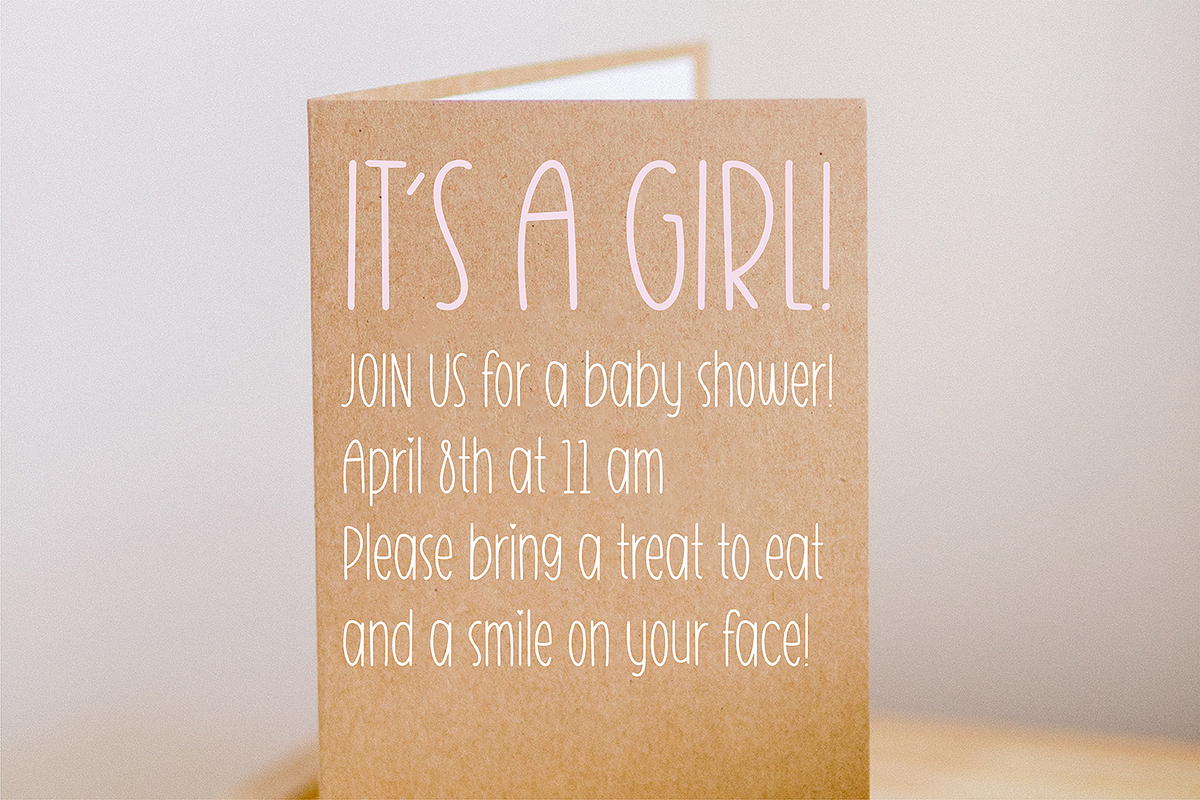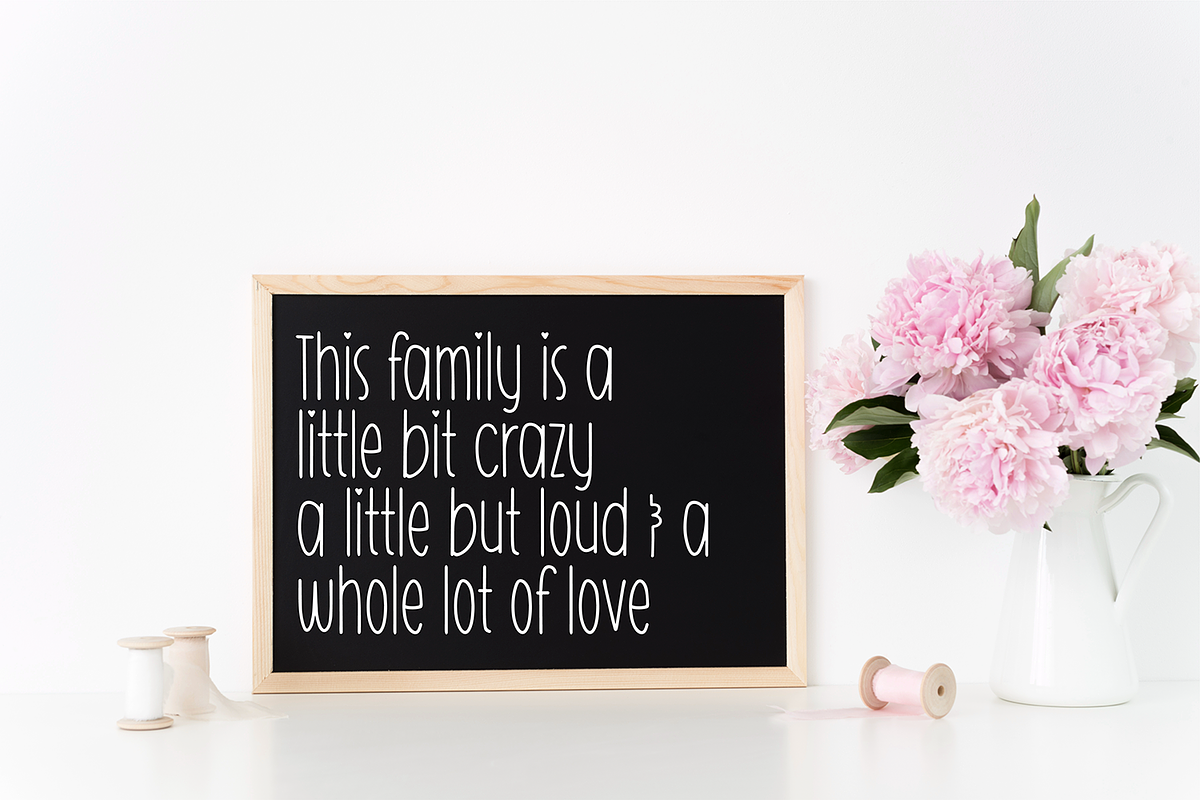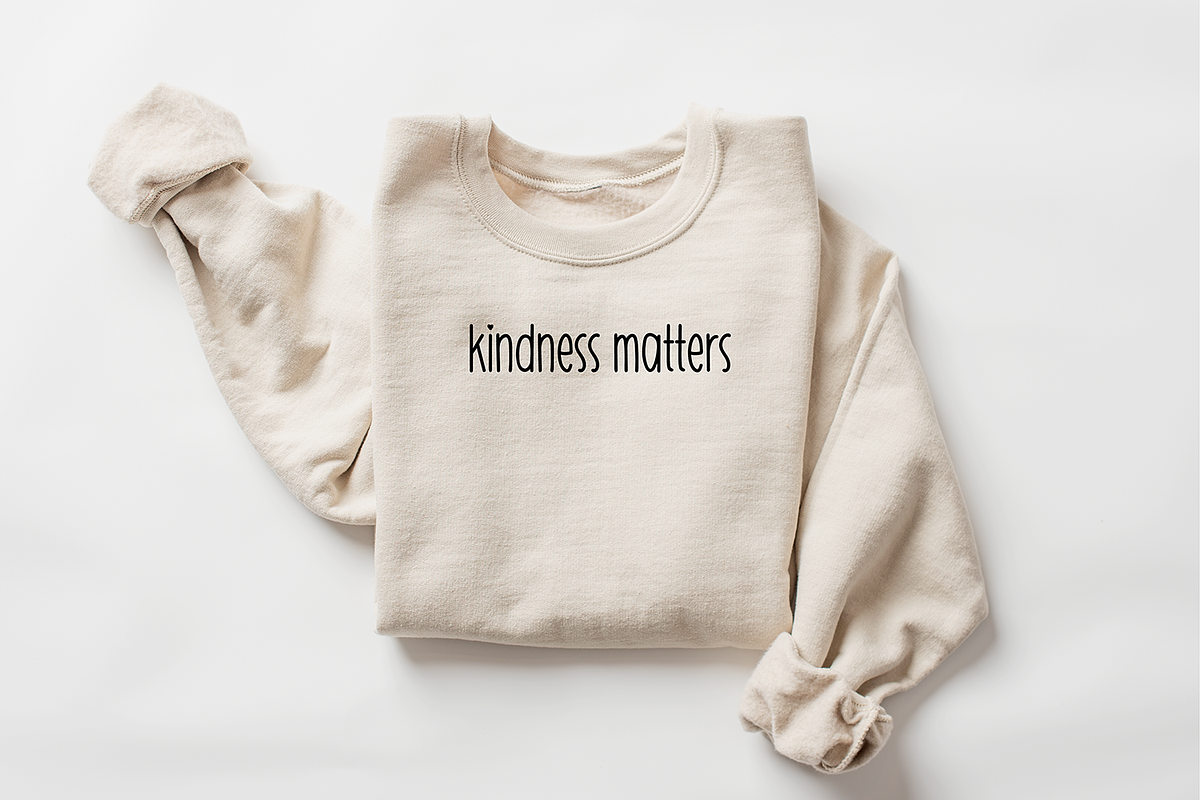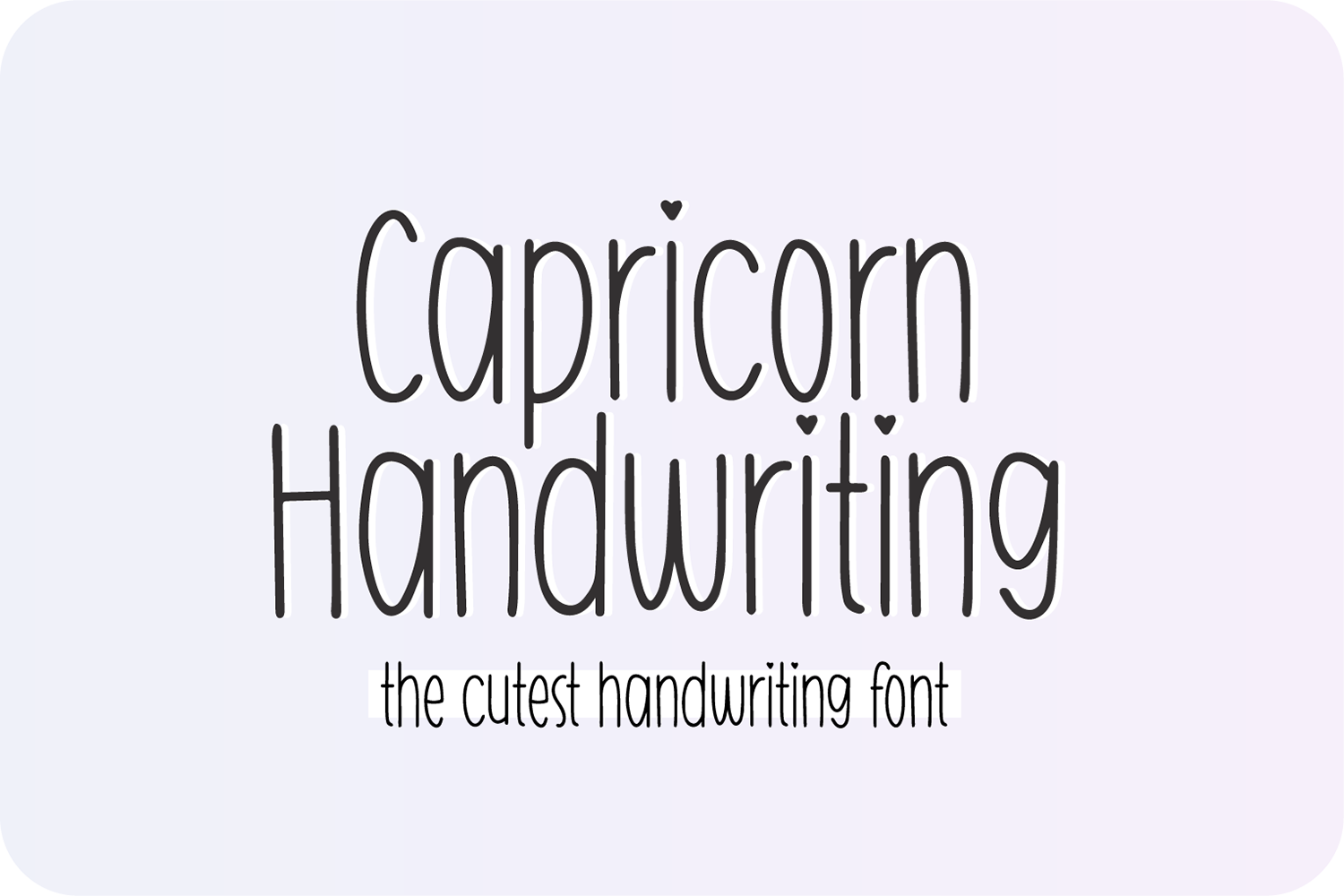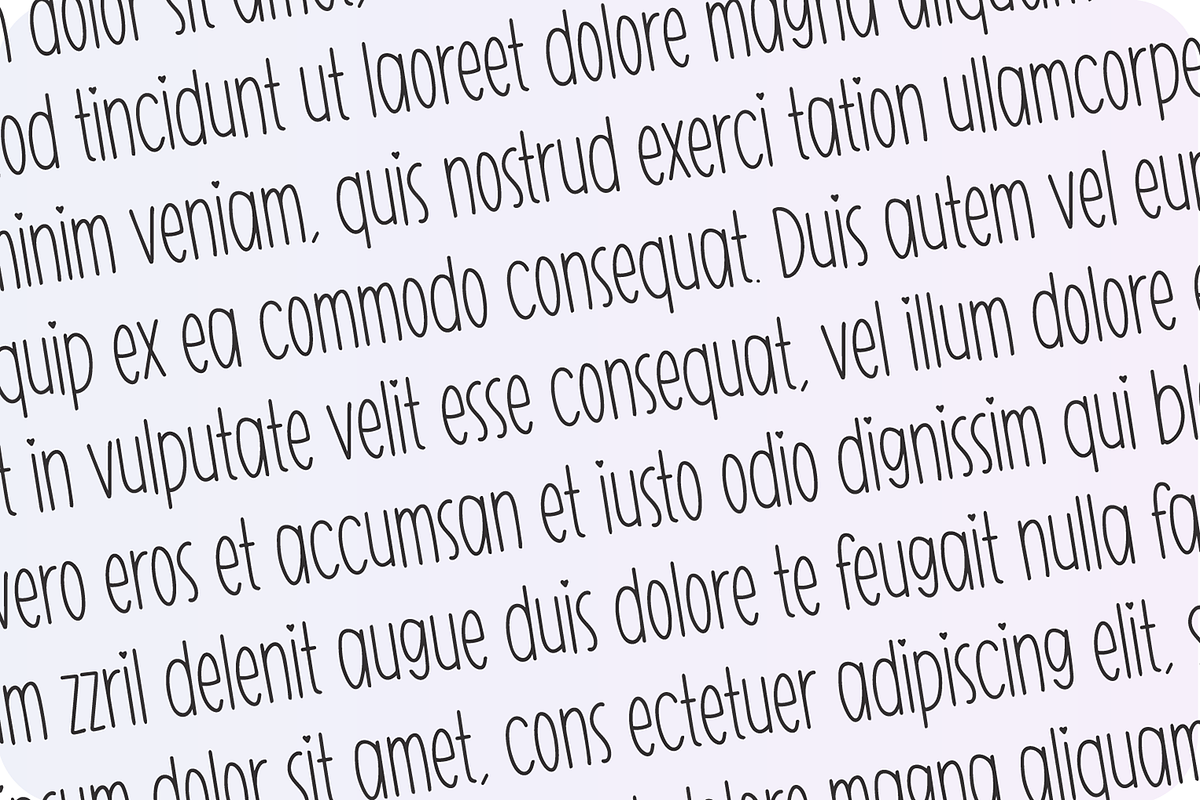
CAPRICORN Skinny Handwriting Font
"Capricorn" handwriting font.
Capricorn is a cute handwriting font that is perfect for social media or crafty projects. Use it for branding, crafts for decor, invitations, and more! This font includes all caps glyphs, numbers, basic punctuation marks.